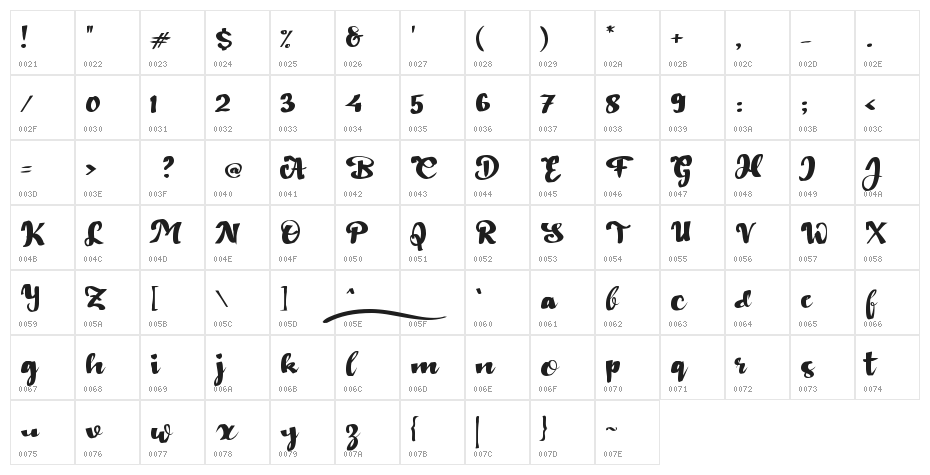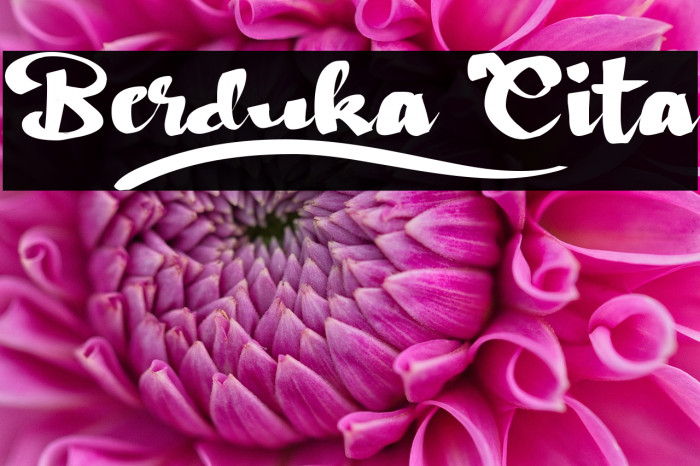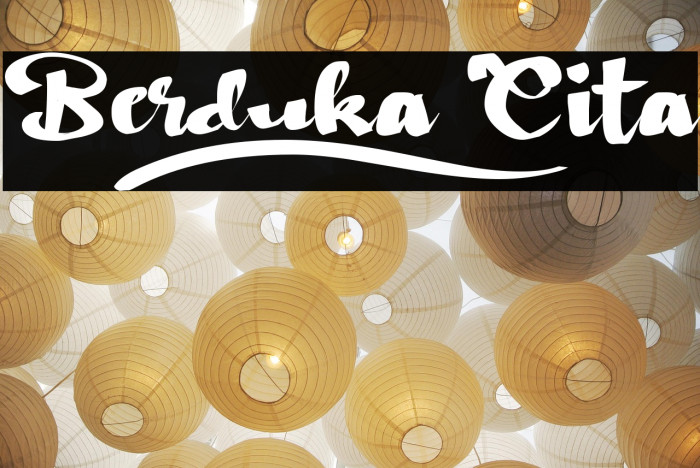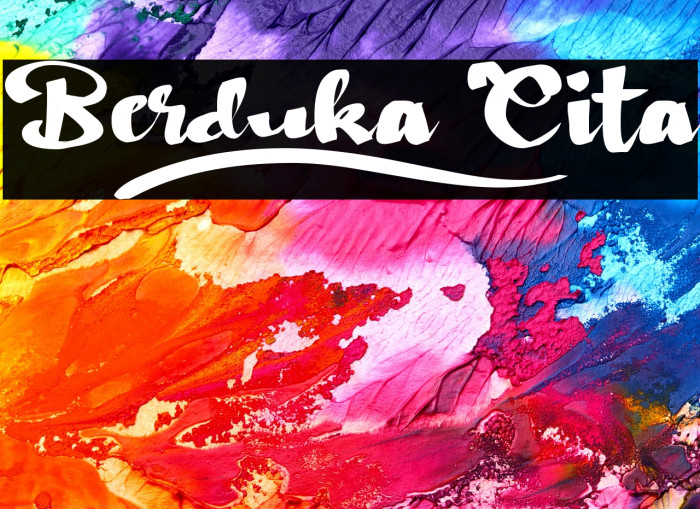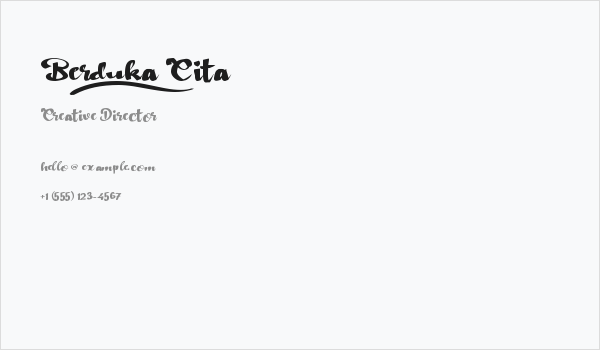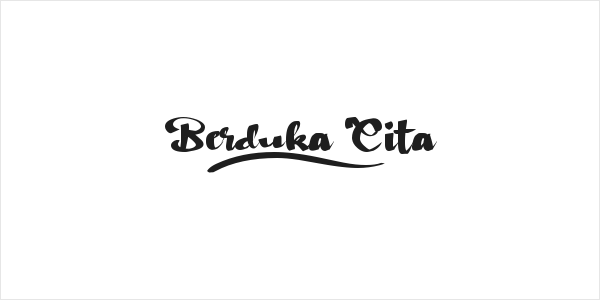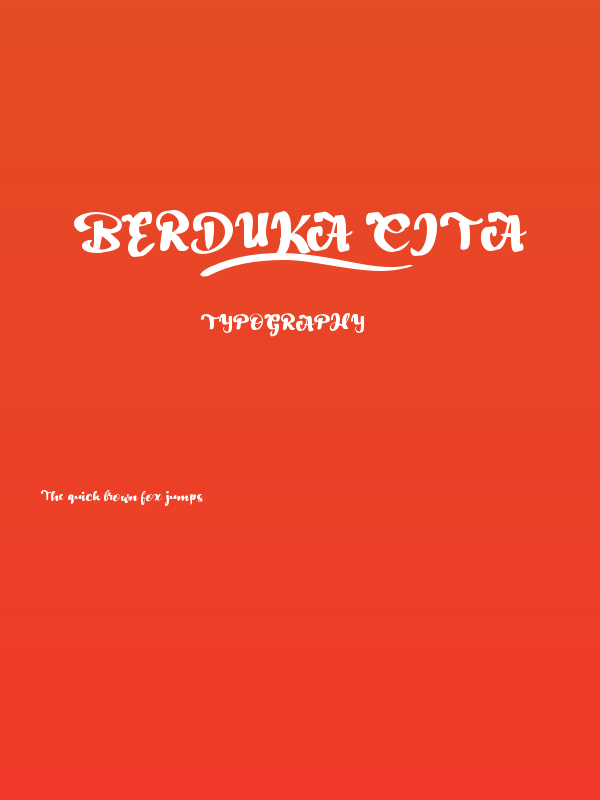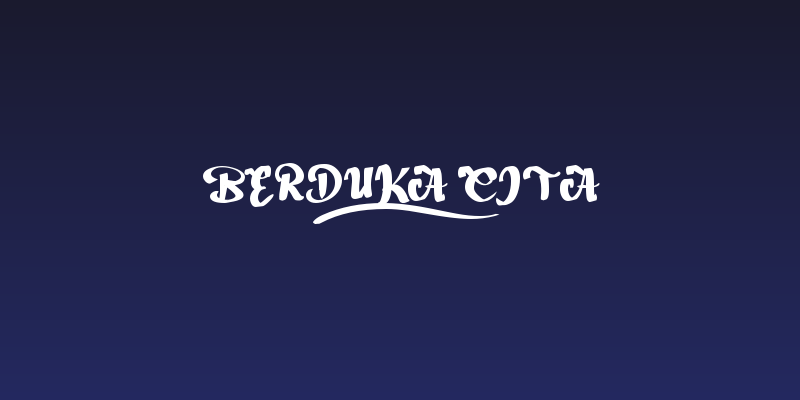
Berduka_Cita Font
Berduka_Cita Description
This font features a bold and expressive script style, characterized by its flowing and interconnected letterforms. The uppercase letters exhibit a strong presence with their thick strokes and decorative flourishes, while the lowercase letters maintain a consistent rhythm and balance. The numerals are equally bold, ensuring readability and impact. Special characters are designed with the same attention to detail, making them suitable for a variety of creative applications. The overall design is dynamic and artistic, perfect for projects that require a touch of elegance and flair.
| Proposed Projects | Ideal for wedding invitations, branding, logo design, and artistic posters. |